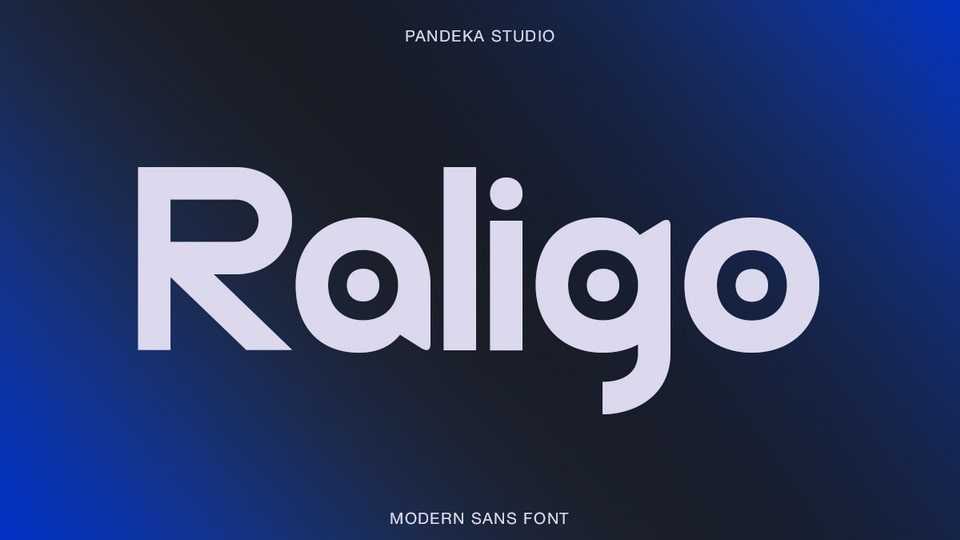
Download Raligo font, a sleek and futuristic sans serif typeface crafted for modern design aesthetics with its rounded edges, balanced proportions, and contemporary flow.